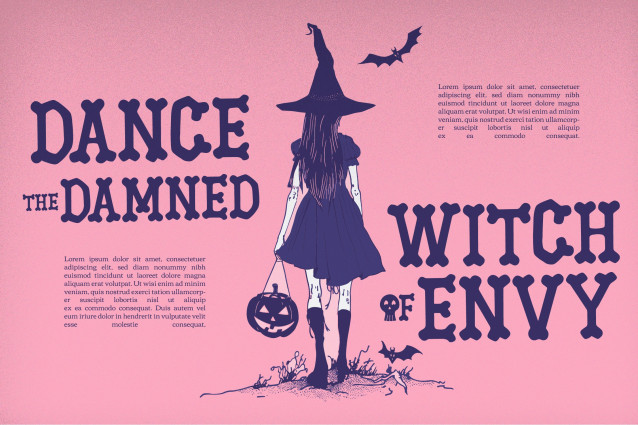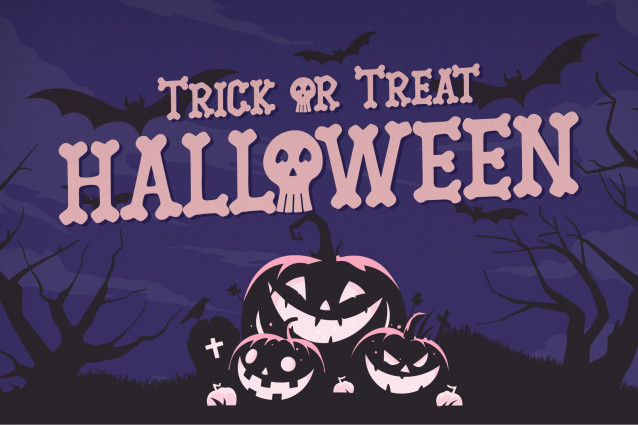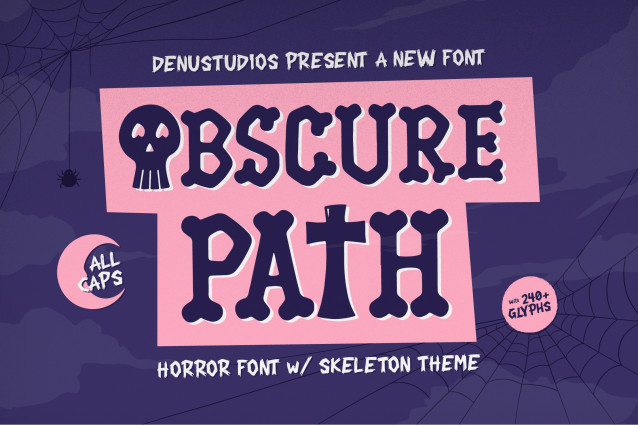
Obscure Path Font
Obscure Path Font | Horror Typeface product packaging, mugs, quotes, posters, shopping bags, t-shirts, book covers, name card, invitation cards, greeting cards, label, photography, watermark, special events, and all your other lovely projects that need a Horror Typeface taste.